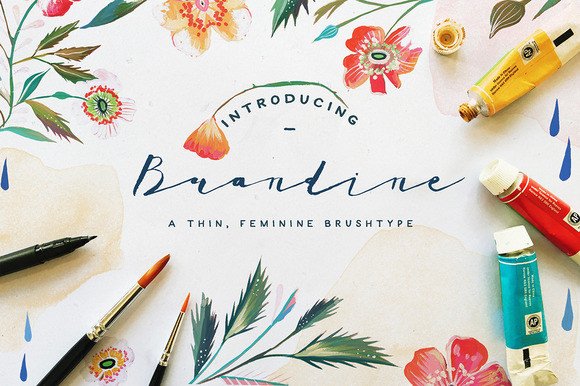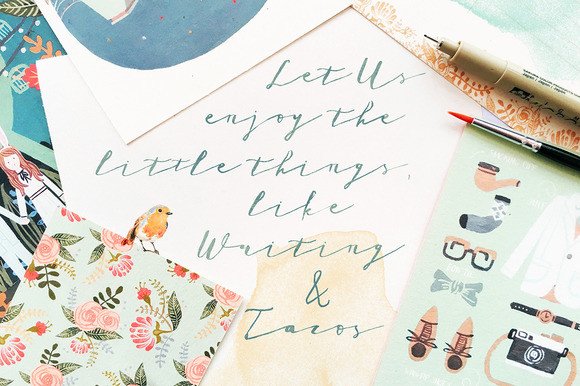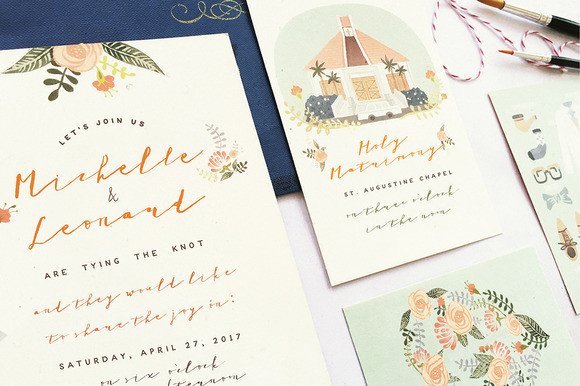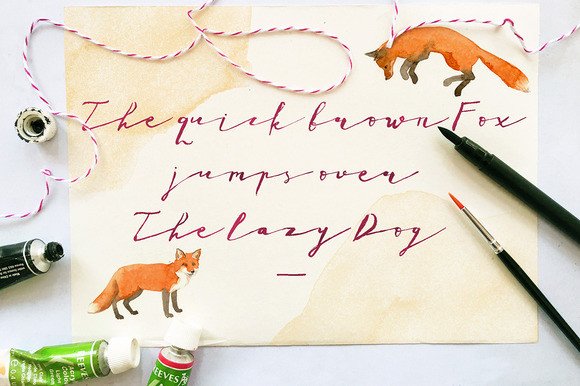
HomeScript FontsBrandine Font Script Fonts Brandine Font FacebookXPinterestWhatsApp Brandine Font Poster 2 Brandine Font Poster 3 Brandine Font Poster 4 About Brandine Font Brandine is a feminine typeface, made with a thin brush and watercolor. DOWNLOAD NOW People also explored Hello Rainbow Font Butterfly Love Oo Font Ardneran Font Blacklist Font Longhair Font Madeline Font Rainbow Marbles Font Brother Font Handmade Christmas Font 311 0 TagsBrandine Font Previous articleHarper Moe FontNext articleHannah Abbot Font LEAVE A REPLY Cancel reply Comment: Please enter your comment! Name:* Please enter your name here Email:* You have entered an incorrect email address! Please enter your email address here Website: Save my name, email, and website in this browser for the next time I comment. Personal Use Free Allea Sweet Personal Use Free Read more about this font Monogram Veg Personal Use Free Read more about this font Strasua Personal Use Free Read more about this font Zroest Personal Use Free Read more about this font BLOG Top 7 Google Fonts Alternatives for Faster and Privacy-Friendly Web Design (2025) Top 7 Google Fonts Alternatives for Faster and Privacy-Friendly Web Design (2025) When it comes to web typography, Google Fonts has long been the go-to... Free Fonts Risk: Why Free Fonts Can Be Dangerous for Designers Transform Your Website: Elevate Your Typography with 7 Best Web Font Generators Modern Sans-Serif Fonts That Brands Love in 2025